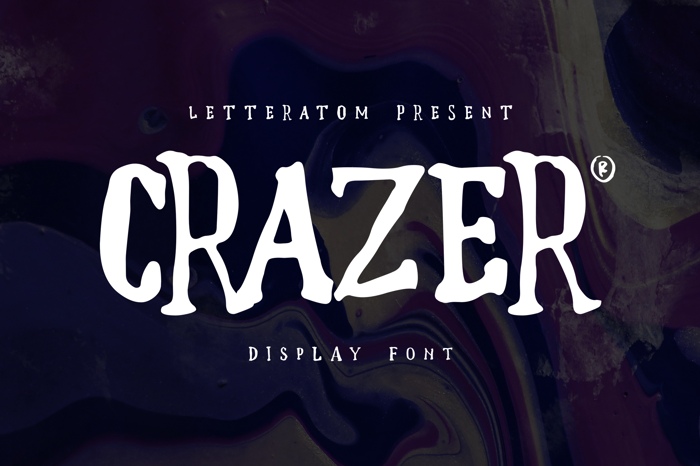
Crazer Font
Crazer is a strange and irregular display typeface. Bringing tense, scary, powerful, and chaotic artwork. Create your creativity with Other Dangers!